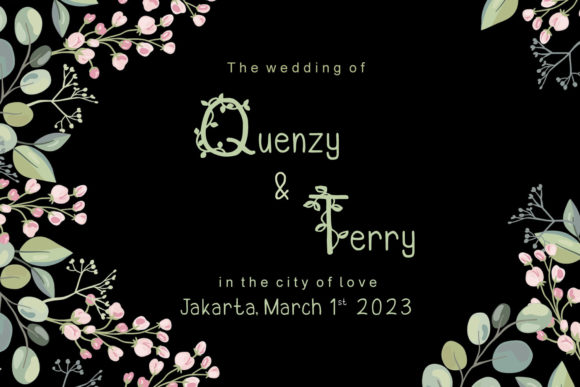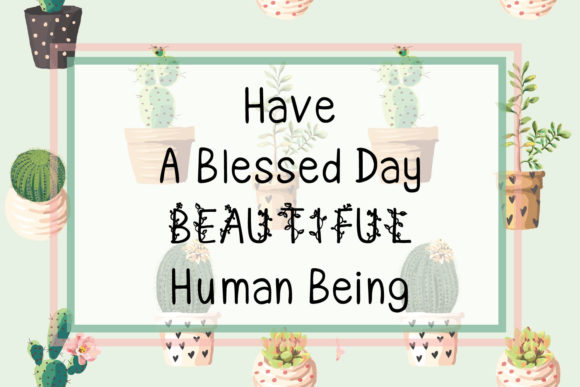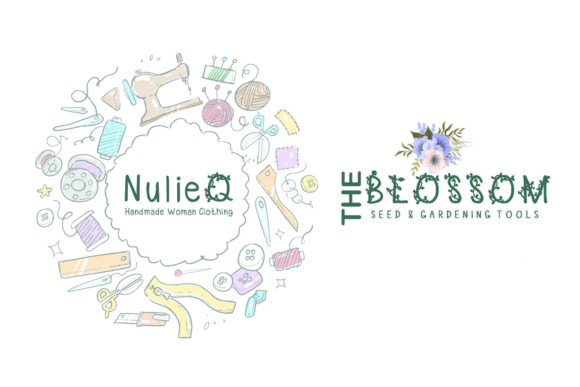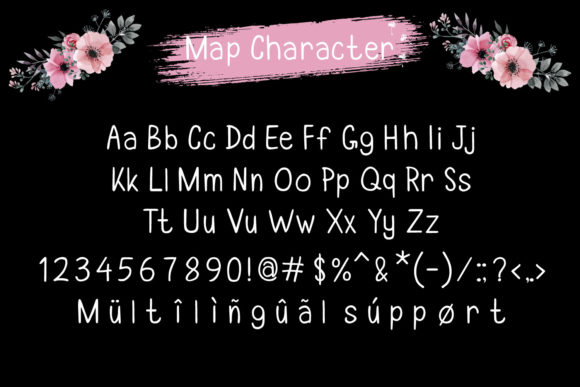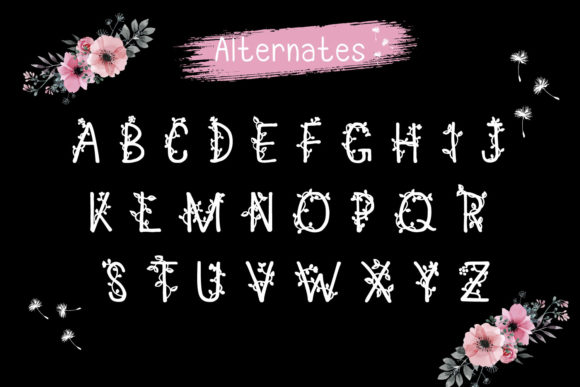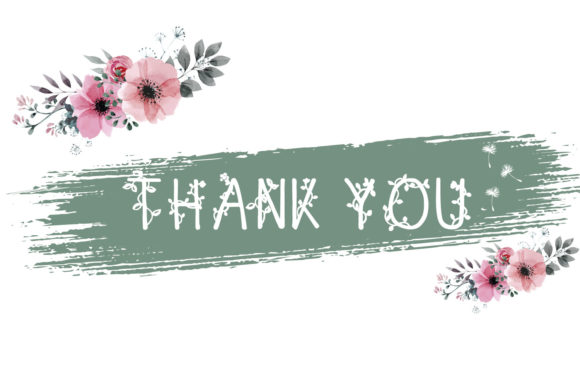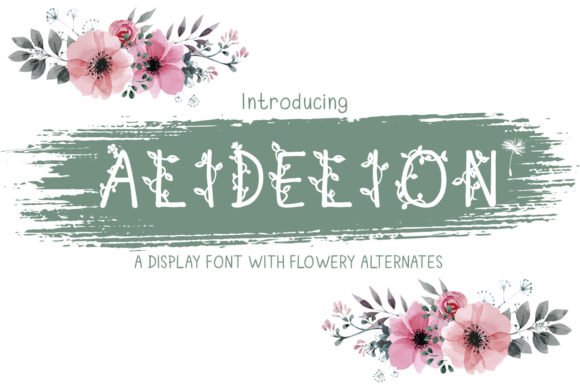
Unlock the Beauty of Your Designs with Alidelion Font
Have you ever found yourself lost in a sea of fonts, searching for the perfect one to bring your creative vision to life? It’s a feeling we’ve all been there – staring at a blank canvas, eager to pour our hearts into a project, but held back by the lack of the right typography. That’s where the Alidelion Font comes in – a dual display font that’s as beautiful as it is versatile.
With its neat and flowery alternates, the Alidelion Font is perfect for adding a touch of elegance to your designs. Whether you’re working on a branding project, creating an invitation card, or designing a book cover, this font is sure to bloom your design and leave a lasting impression. Its value lies in its ability to add a unique touch to any project, making it a must-have for designers looking to take their work to the next level.
Key Features of Alidelion Font
- Font Family: Alidelion Font is a sans-serif font family with a modern and minimalist design.
- Unique Characteristics: The Alidelion Font features a unique geometric shape and a clean, modern aesthetic, making it an ideal choice for contemporary designs, such as logos, branding, and editorial content.
Review of Alidelion Font
Overall, I was pleasantly surprised by the Alidelion Font. Here are some of the aspects that stood out to me: ✨
- Unique Character: The Alidelion Font has a distinct, quirky feel to it that sets it apart from more common fonts. This makes it perfect for projects that need a bit of personality.
- Legibility: Despite its unconventional design, the Alidelion Font is surprisingly legible, making it suitable for body text and even headlines.
However, I did encounter some limitations: ⚠️
- Limited Language Support: The Alidelion Font only supports a limited range of languages, which may be a concern for projects that require multilingual support.
- Not Ideal for Large Text: While the font is legible, it’s not the most suitable choice for large text sizes, where its quirks can become overwhelming.
Overall, I’d say the Alidelion Font is a great choice for projects that need a bit of personality and flair. While it has some limitations, its unique character and legibility make it a solid option for designers looking to add some visual interest to their work.
Tip: To get the most out of Alidelion font in Canva, use it for headings and titles to add a touch of elegance to your designs.
Tip: Use Alidelion font in combination with other elegant fonts to create a sophisticated look in your designs.
Tip: Use Alidelion font for headings and titles in presentations and documents to add a touch of professionalism.
Remember to use Alidelion font in moderation to avoid overwhelming your design with too much elegance.